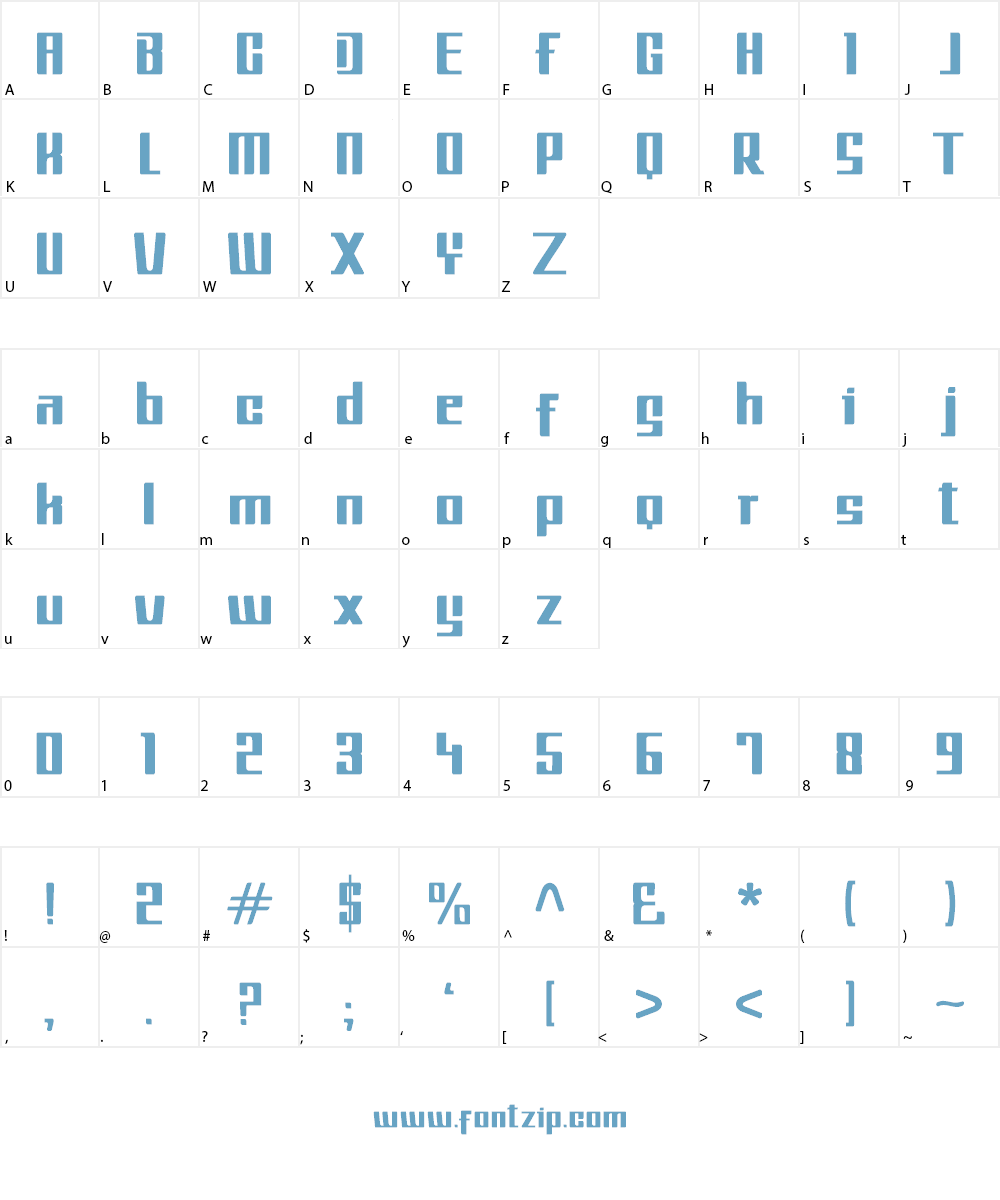
This product is a Metroil font still family with metrool fonts.
Metroil is a bold and classic display font with a powerful feel.
It will put a dynamic spin on any design project!